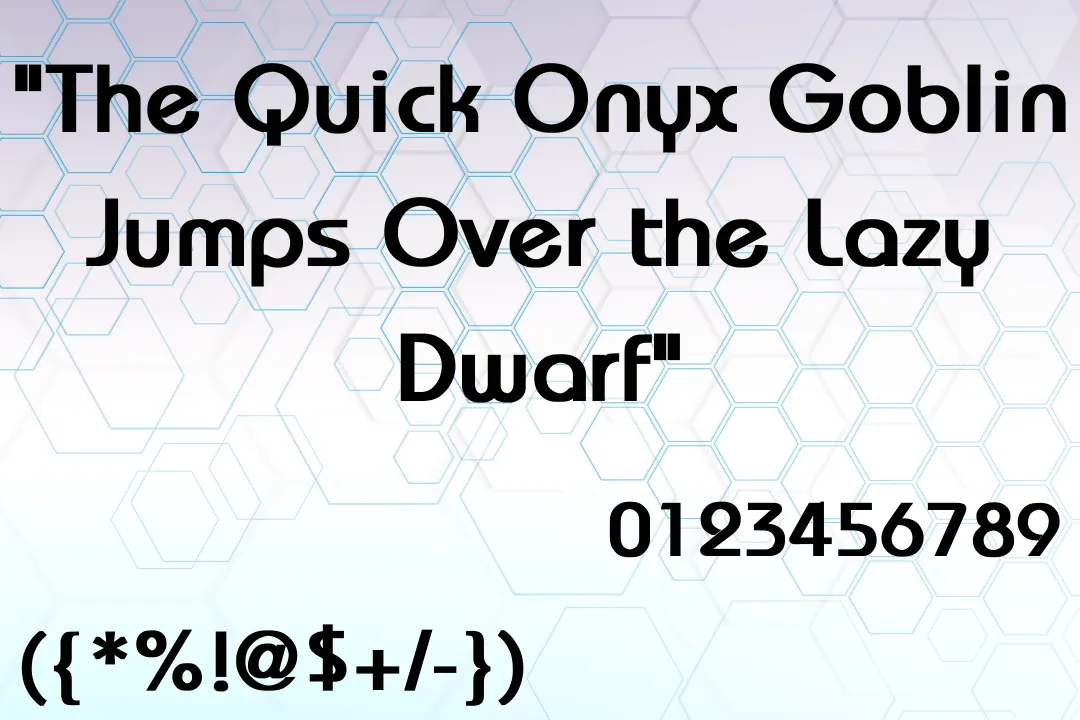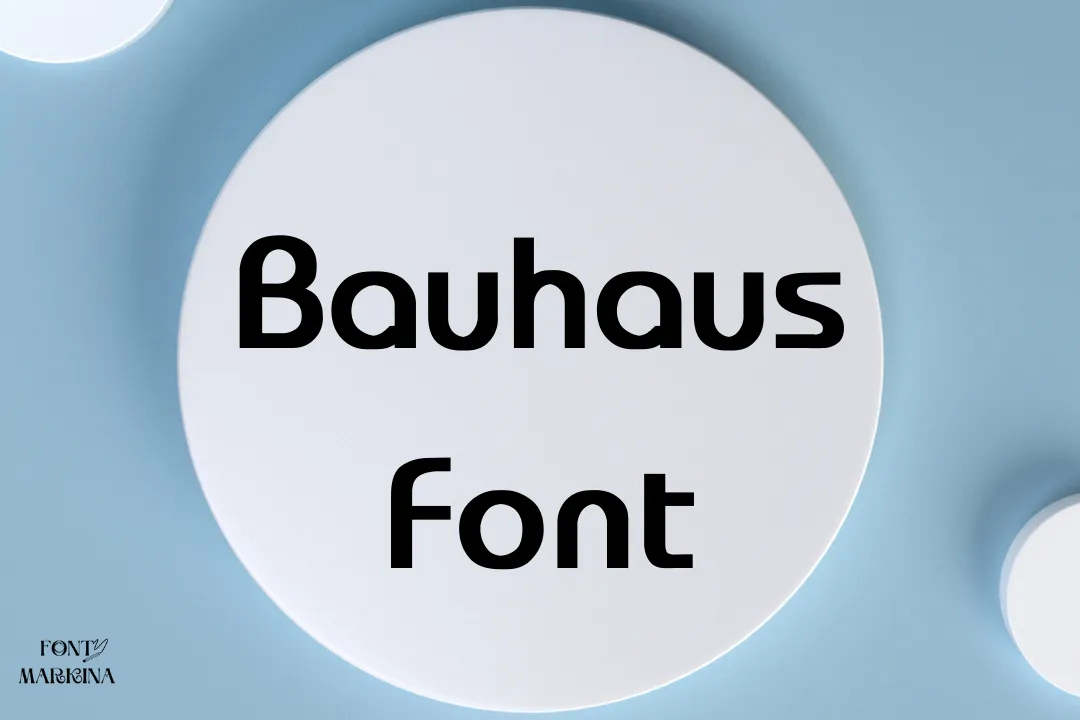
Introducing to you, authentic information about a very famous typeface that is known under the name Bauhaus Font. It is from the category of the Sans Serif font family. It is specified for the CSS.
Joe Taylor is the primary designer of this family. After his hard work, this typeface was released in the year 1960. This font family consists of four unique and special styles. All of its styles are heavy, bold, medium, and regular. The copy-and-paste function of this texture is more classic.
Uses of Bauhaus Font
This typeface is useful for many design projects such as post-designing, image designing, and different types of attractive graphics. Nowadays, for clothes printing this typeface is commonly used. You can also use this family for different types of amazing design stuff and other materials.
You can also use Aqua Grotesque font by making a strong pairing with this family to get more classic uses. This family is suited for various types of video editing and photo editing. It will give gorgeous look to your designs.
What font is similar to Bauhaus?
Akzidenz Grotesk Font has the same look as this family. Both typefaces have the same styles.
Who created Bauhaus font?
Herbert Bayer and Joe Taylor are the manufacturers of this tremendous font family.
When was the Bauhaus typeface invented?
This typeface was developed in the year 1969 and after its release, it got popular all over the world.